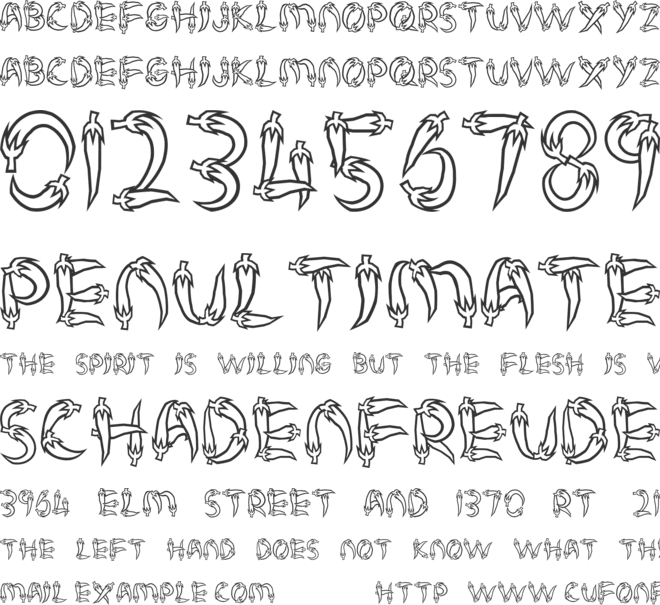
PEDASNYER Font
Copyright (c) 2017, HASLINDA ADNANPEDASNYER is fancy font typeface created by Haslinda Adnan. It's all in caps. Looks best at larger sizes.It's free to personal use.Free for personal and non-profit use. Can not be used to represent your company or your organization. Please donate a minimum of $10 to my paypal accounts,  (mailto:).Help my work, all donations are greatly appreciated. THANKS